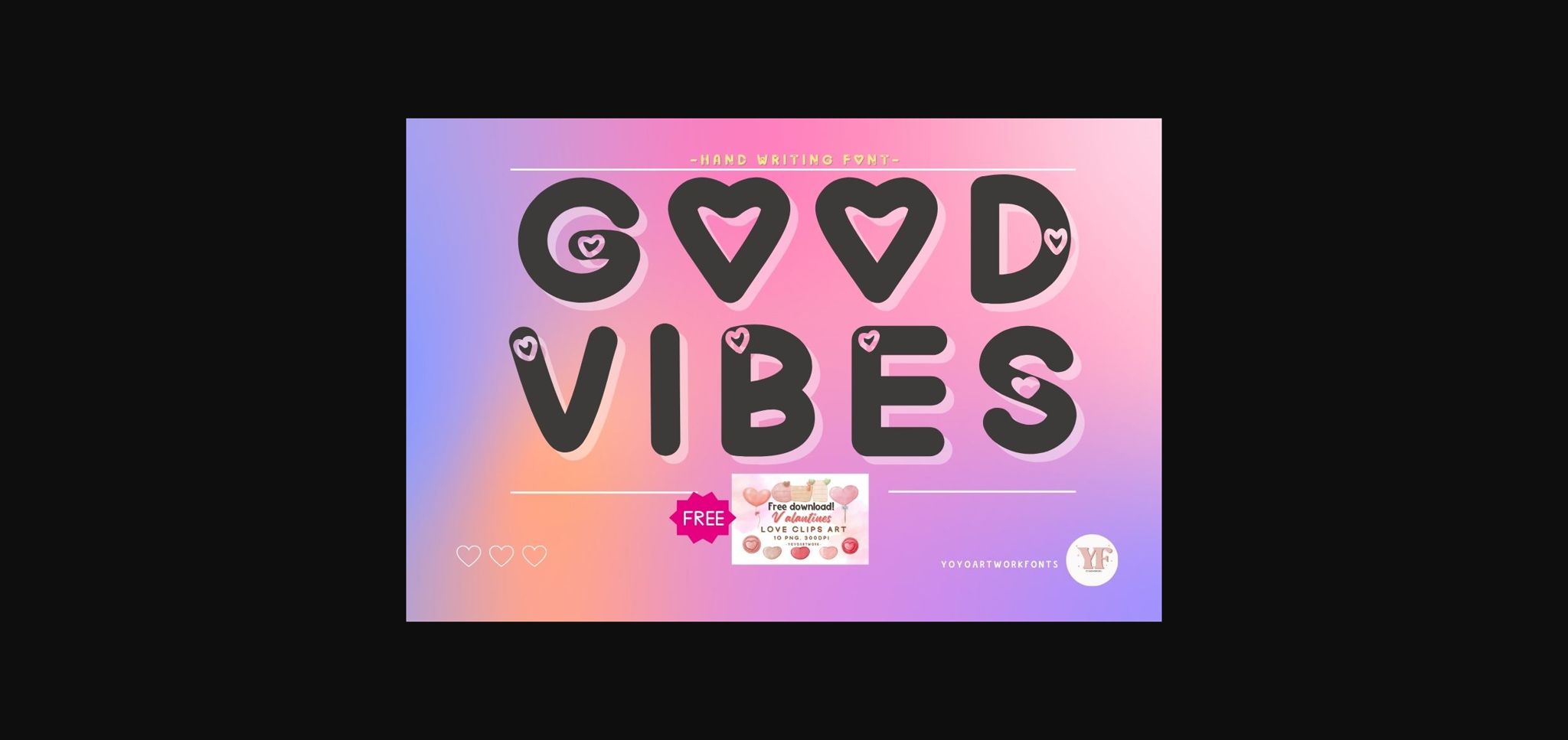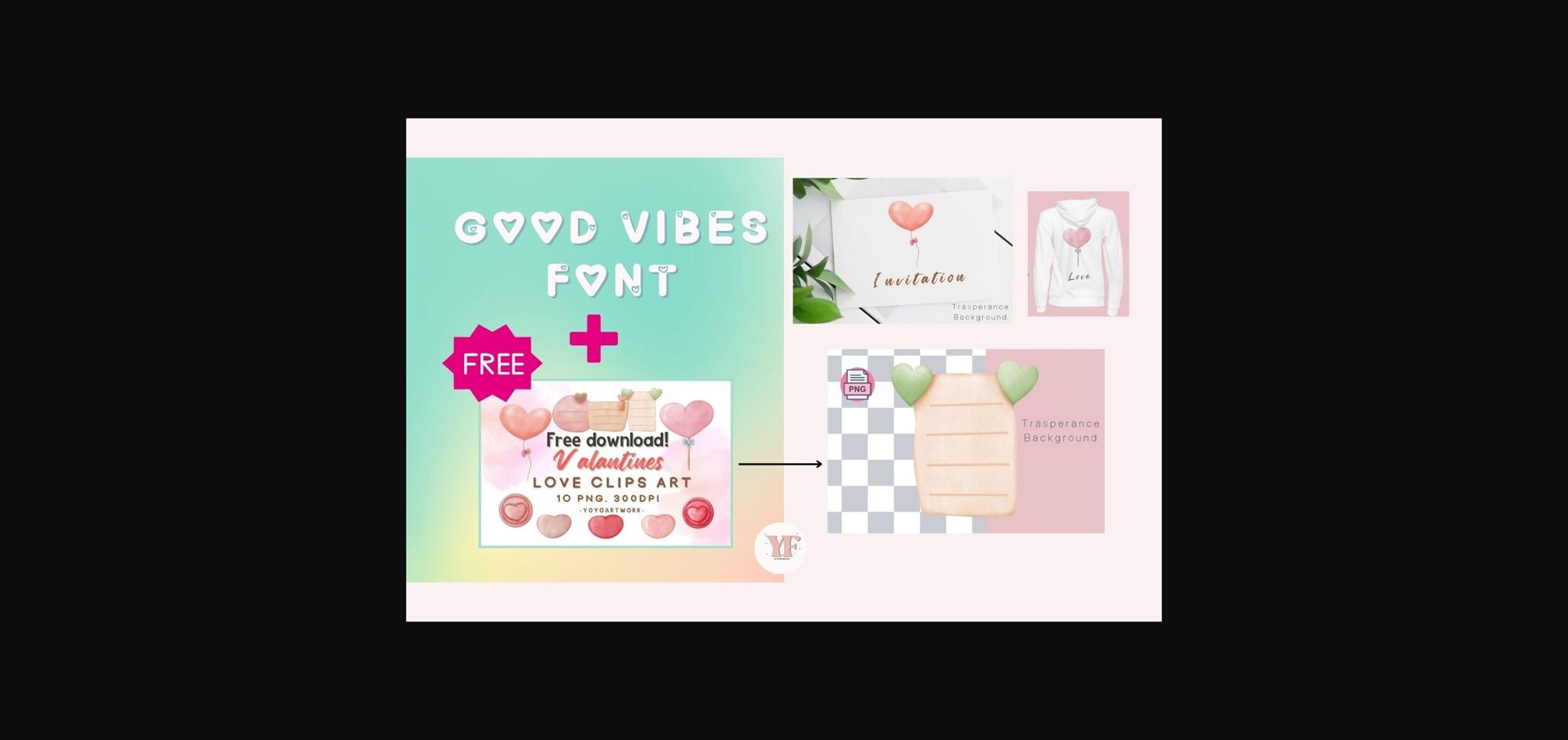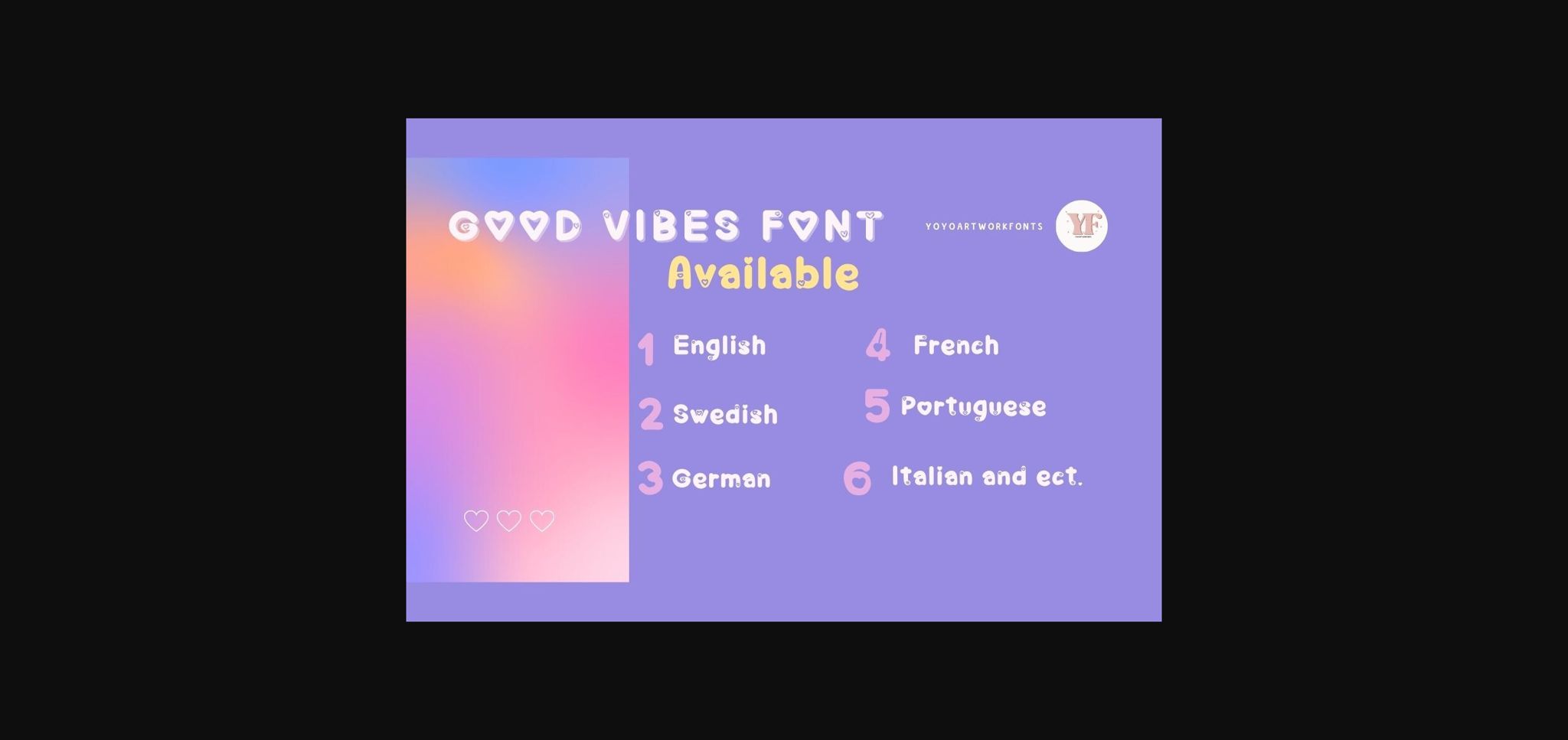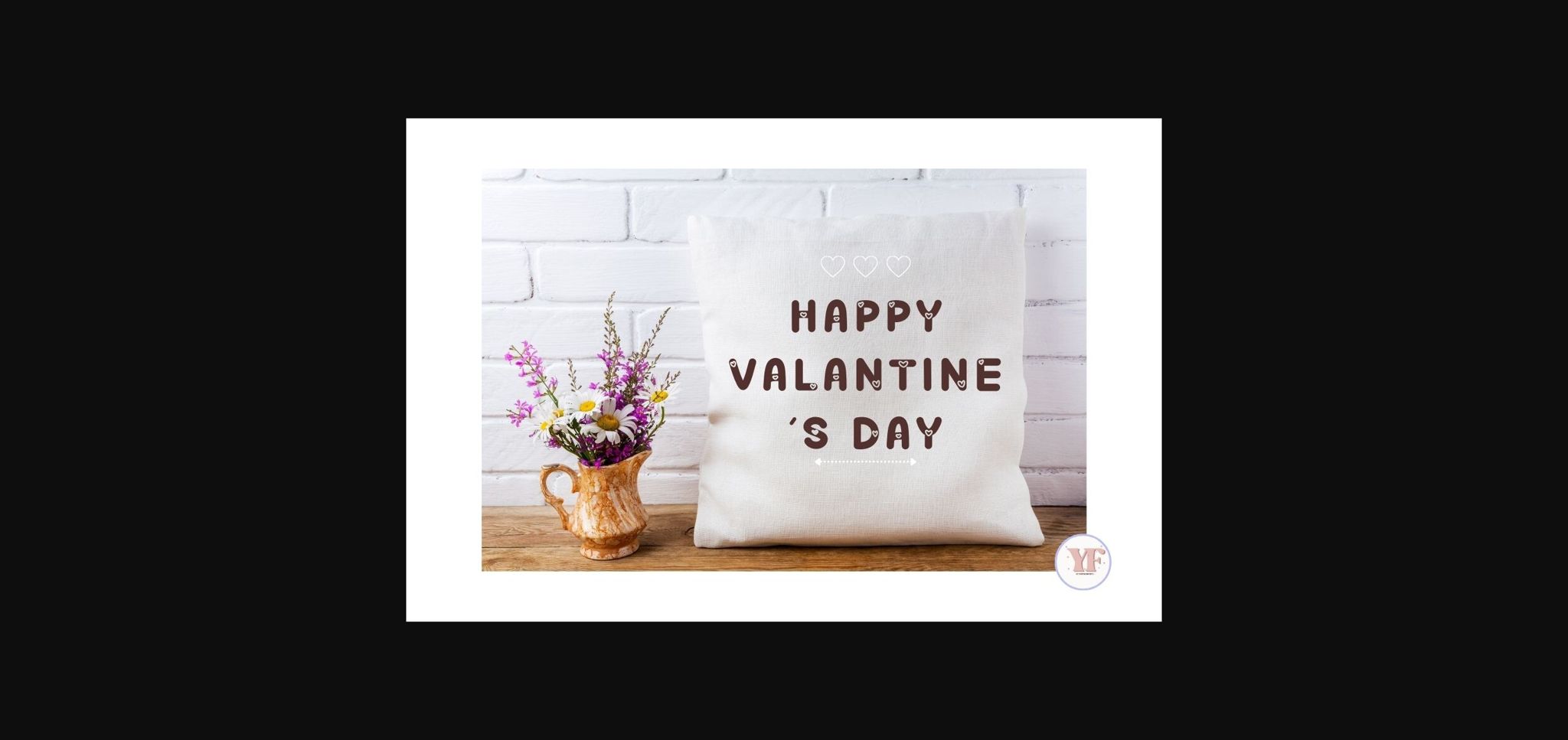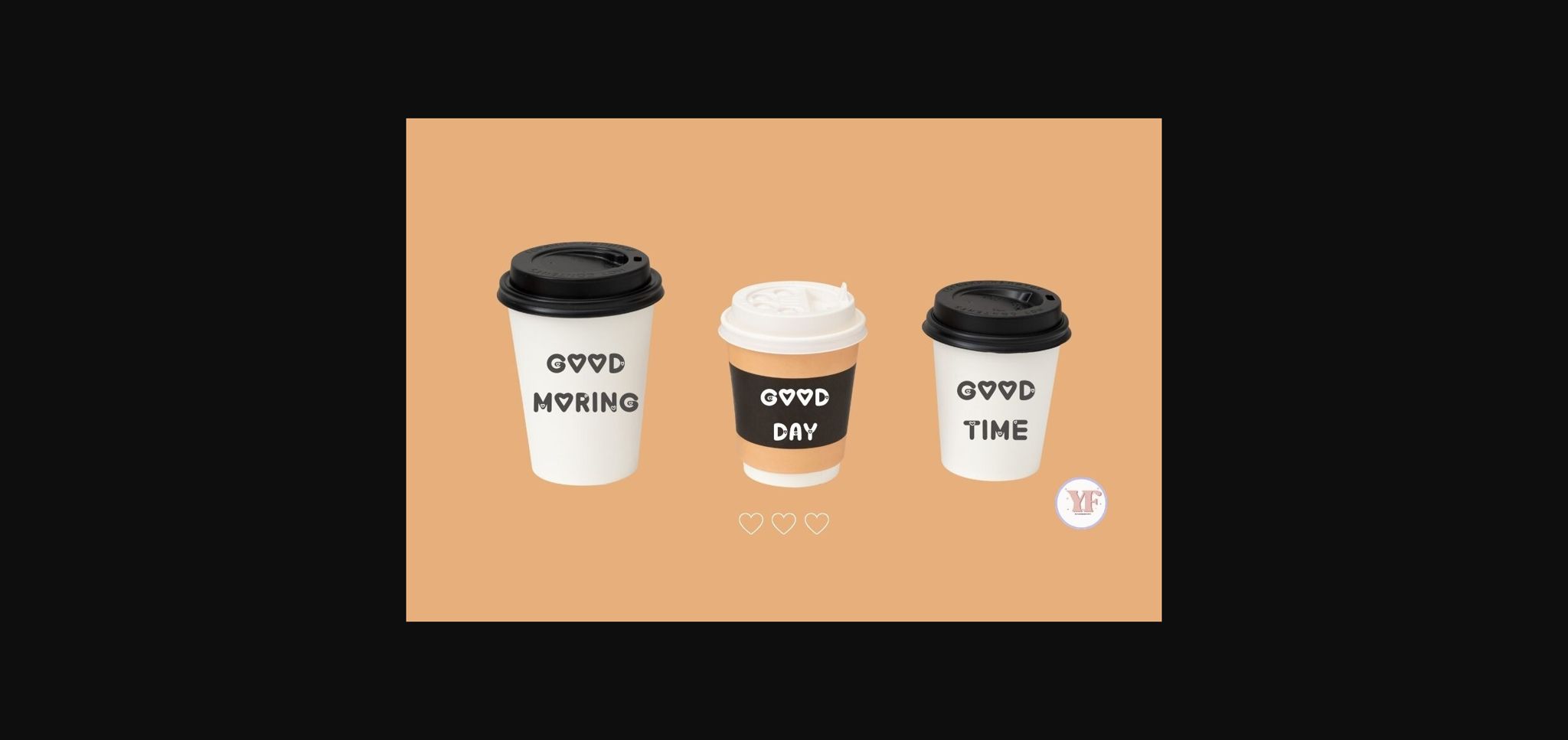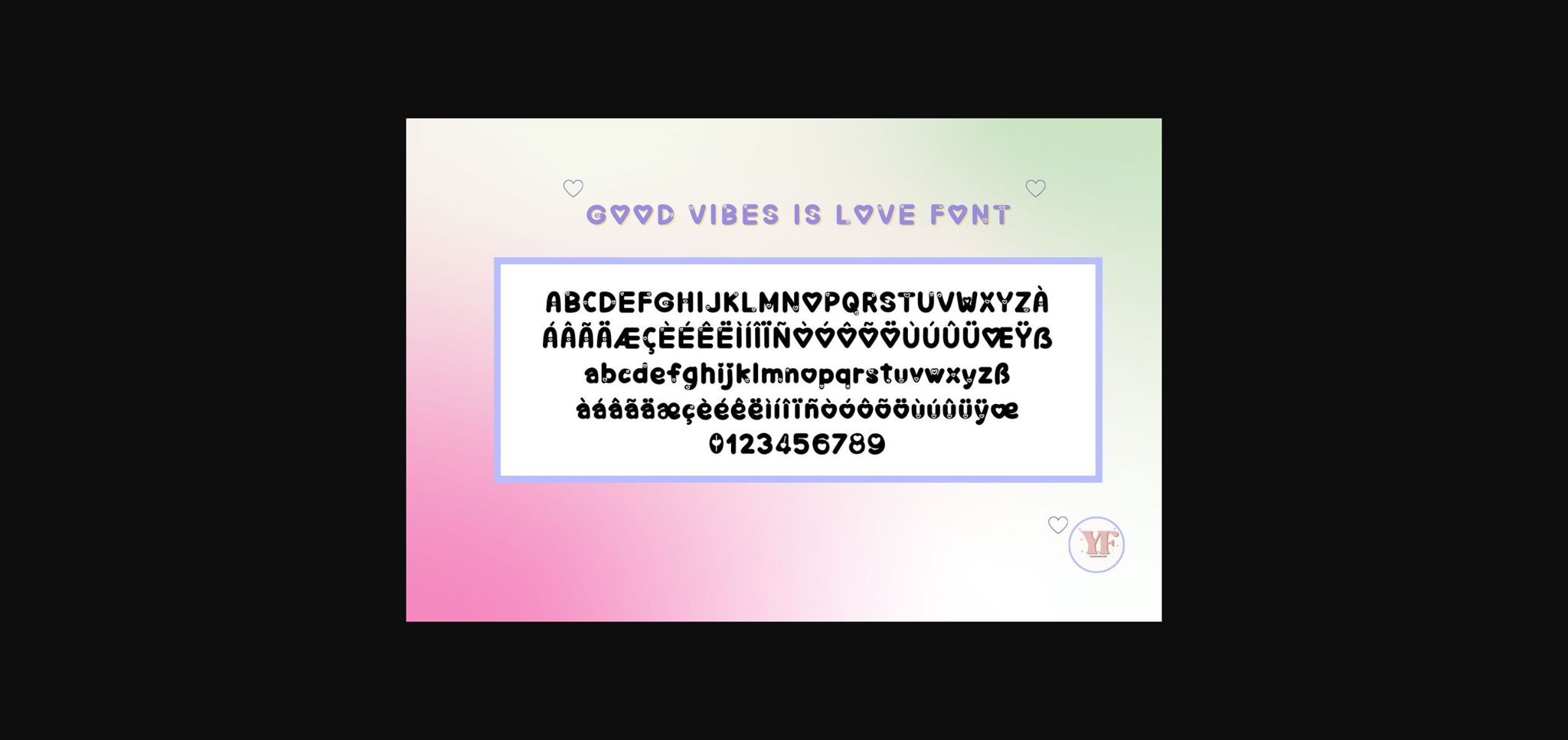
About Good Vibes Font
Good Vibes font exudes an aura of warmth and affection, drawing inspiration from the profound emotions of love and fulfillment. Perfectly timed for Valentine’s Day or any occasion celebrating love, this font captures the essence of heartfelt connections and positive vibrations.
With its whimsical yet elegant design, Good Vibes embodies the essence of romance and happiness. Each letter is delicately crafted with a subtle heart line running through, symbolizing the intertwining of souls in love. The handwritten style adds a personal touch, evoking feelings of intimacy and sincerity.